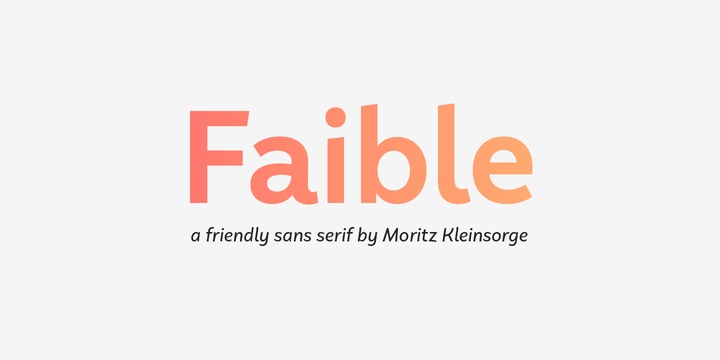
Faible Font
Faible Font is perfect for delicate beauty brands, gentle wellness centers, subtle luxury products, refined minimalist designs, soft romantic campaigns, elegant feminine branding, graceful stationery materials, tender personal projects, sophisticated spa signage, and understated premium packaging.
What makes Faible Font so exciting is its remarkable ability to communicate gentle strength and delicate sophistication through letterforms that seem to whisper elegance while maintaining profound visual impact through subtle refinement. This graceful typeface captures the essence of understated luxury and gentle femininity with characters that radiate quiet confidence, delicate beauty, and the kind of refined restraint that speaks volumes without raising its voice. The font's delicate design elements perfectly balance fragile aesthetics with structural integrity, creating an indispensable tool that communicates gentle sophistication, refined sensitivity, and understated elegance, making it essential for brands celebrating the power of subtlety and the beauty found in gentle, refined expression.
Faible Font comes in multiple font families including Regular, Bold, Light, Italic, Bold Italic, Delicate, Gentle, and Refined variations. Each family member maintains the core subtle characteristics while offering different delicacy levels and refined approaches to suit various gentle and sophisticated design requirements.
The Faible Font Free Download provides luxury brands and sophisticated organizations with an exceptional resource for creating refined materials that communicate elegance through restraint and sophistication through subtlety. This remarkable typeface distinguishes itself through its unique ability to communicate themes of gentle luxury, delicate sophistication, and refined femininity. Whether you're developing premium beauty brands, creating wellness center materials, or designing sophisticated romantic campaigns, this font ensures your message radiates the understated elegance and gentle confidence that discerning audiences appreciate in authentic luxury experiences and refined lifestyle products.
The delicate precision in Faible Font makes it particularly effective for luxury beauty and wellness industries where conveying gentle sophistication and delicate refinement is crucial for connecting with audiences seeking authentic luxury experiences that prioritize subtlety and refined elegance over bold statements. Its graceful letterforms work beautifully across both intimate print applications and sophisticated digital platforms, maintaining consistent gentle appeal and refined presentation.
Luxury wellness professionals appreciate how Faible Font transforms ordinary communications into gentle expressions of refined sophistication and delicate elegance. The typeface's subtle character set includes special delicate symbols, gentle decorative elements, and refined features that enhance the overall understated atmosphere of any sophisticatedly gentle project.
For creative professionals serving luxury beauty, wellness centers, and refined feminine brands, Faible Font serves as the perfect foundation for establishing memorable visual identities that capture the essential qualities of gentle sophistication, delicate elegance, and refined restraint that define successful brands celebrating the profound beauty found in subtlety and the powerful impact of gentle, refined expression in luxury markets where less truly becomes more.